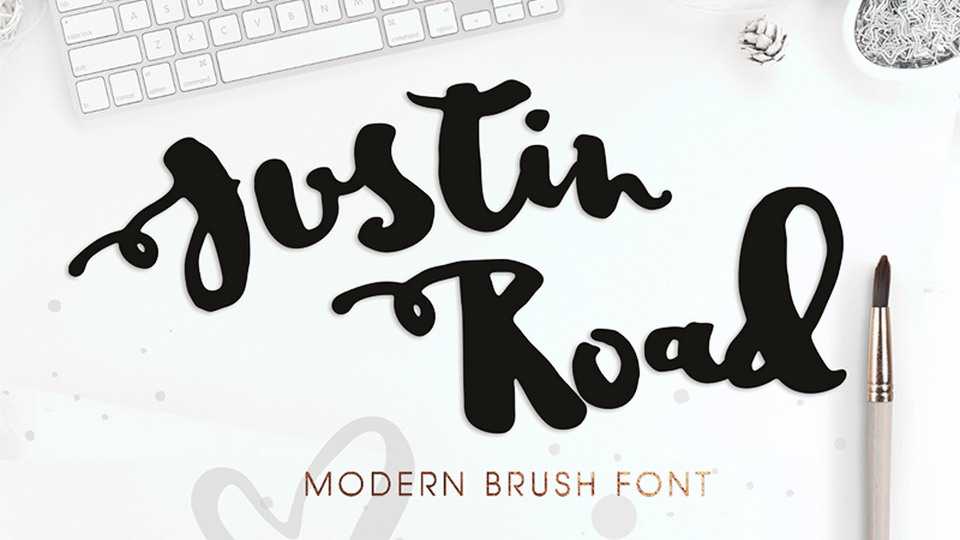
Download Justin Road font, a lovely hand painted brush font. Perfectly suitable for crafts, paintings, cards, letters, social media posts and other beautiful designs.
Designer: Mycandythemes